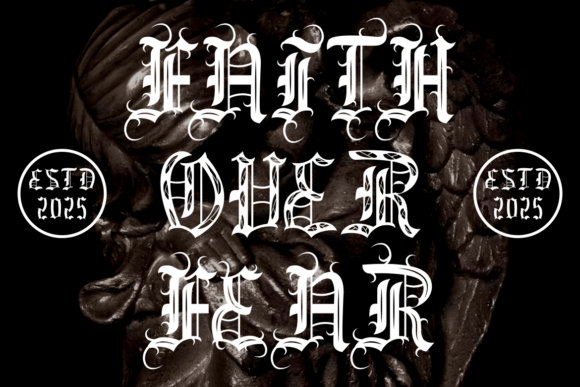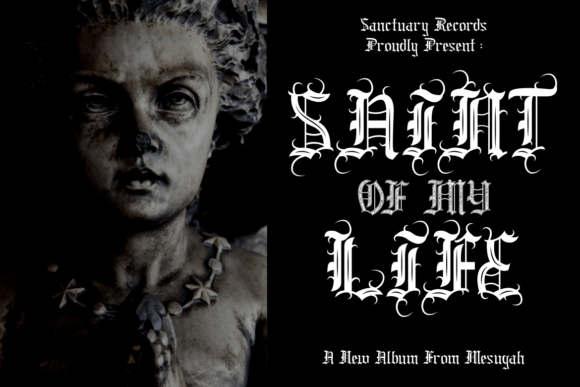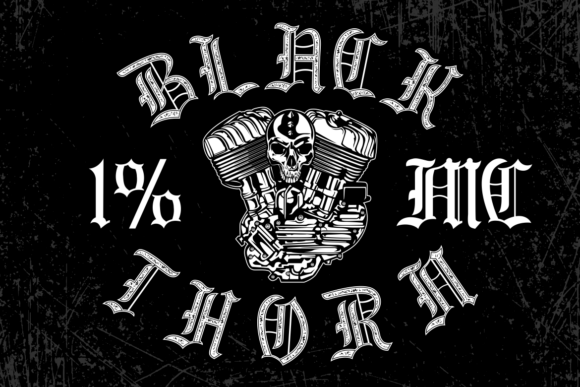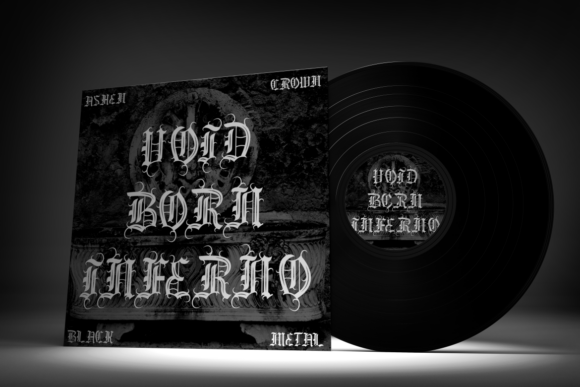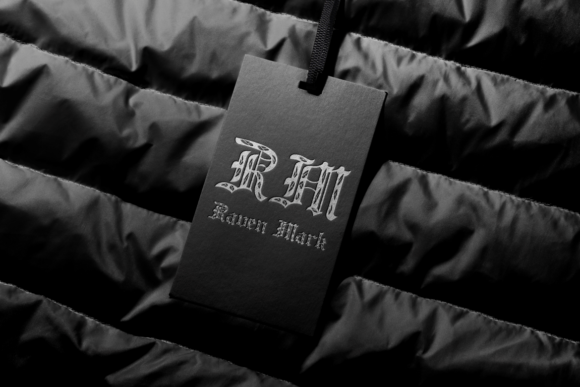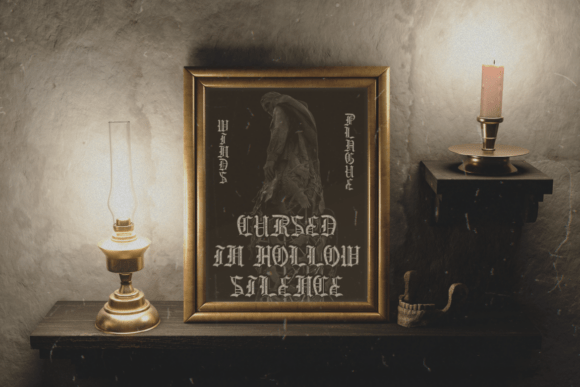
Unleash the Power of Dark Spire Font: A Gothic Masterpiece
Introducing Dark Spire, a blackletter font that embodies the essence of gothic spirit – bold, sharp, and theatrically intense. This meticulously crafted font is designed to make a statement, featuring extended spikes, intricate counters, and dramatic curves that exude a sense of power and expression.
A Font Forged in Gothic Spirit
Dark Spire is more than just a font – it’s an experience. Each character is carefully crafted with ornamental precision, showcasing a level of detail that’s hard to find in modern typography. The result is a font that’s not only visually striking but also rich in history and cultural significance. From metal band logos to underground film titles, Dark Spire is the perfect choice for designers and crafters looking to add a touch of darkness and mystery to their work.
Five Distinct Styles for Endless Creativity
One of the standout features of Dark Spire is its versatility. The font comes in five distinct styles, ranging from textured and inline to solid and outline variations. This range of options allows designers to experiment with different looks and feels, ensuring that their work stands out from the crowd. Whether you’re creating a logo, poster, or packaging design, Dark Spire has the flexibility to adapt to your unique vision.
Ceremonial Feel and Dark Romanticism
Dark Spire’s stylized ligatures and swash-like terminals give each composition a ceremonial feel, evoking the dark romanticism of medieval artistry and tattoo subcultures. This font is perfect for designers who want to add a touch of drama and elegance to their work. The intricate details and ornate precision of Dark Spire make it an ideal choice for projects that require a sense of luxury and sophistication.
Endless Applications for Designers and Crafters
Dark Spire’s versatility knows no bounds. This font can be used for a wide range of applications, including:
- Metal band logos and music branding
- Underground film titles and movie posters
- Streetwear branding and fashion design
- Immersive poster designs and event graphics
- Gothic novels and book covers
- Packaging design and product labeling
- Clothing labels and textile design
Optimized for Visual Impact and Creative Versatility
Dark Spire is not just a font – it’s a tool for creative expression. The uppercase blackletter forms blend seamlessly into grungy textures or ornate layouts, making it adaptable for a wide range of design applications. The balance between spiked edges and harmonious weight distribution ensures that the font remains legible, even in complex compositions.
Technical Details and Optimization
Dark Spire is optimized for both visual impact and creative versatility. The font features:
- Extended spikes and intricate counters for added texture and depth
- Stylized ligatures and swash-like terminals for a ceremonial feel
- Five distinct styles for endless creativity and experimentation
- Seamless integration with grungy textures and ornate layouts
- Legible and harmonious weight distribution for optimal readability
Dark Spire Font is a masterpiece of gothic typography, offering designers and crafters a powerful tool for creative expression. With its bold, sharp, and theatrically intense design, this font is perfect for projects that require a sense of power, mystery, and drama. Whether you’re creating a metal band logo or an immersive poster design, Dark Spire is the perfect choice for adding a touch of darkness and elegance to your work.